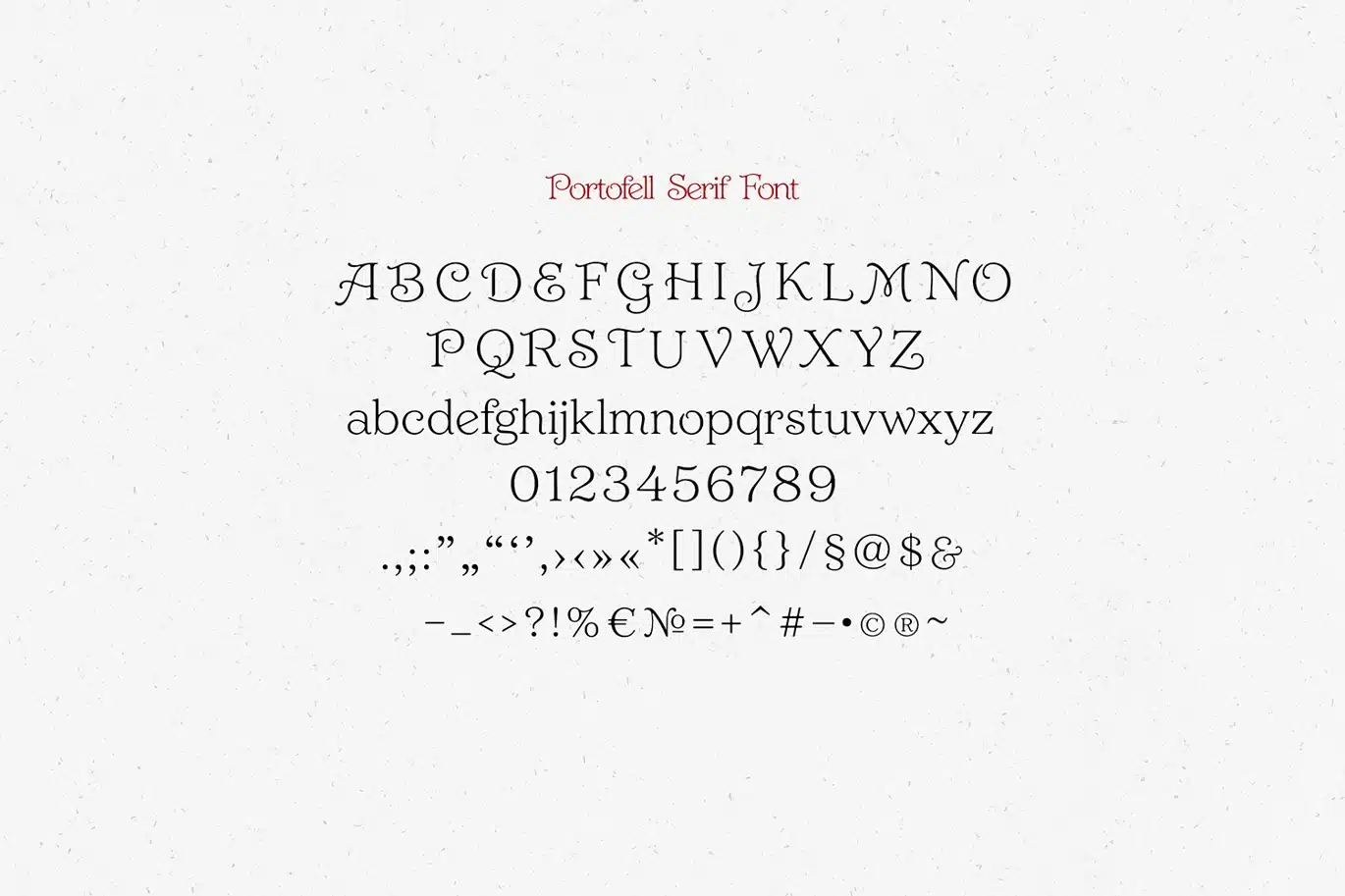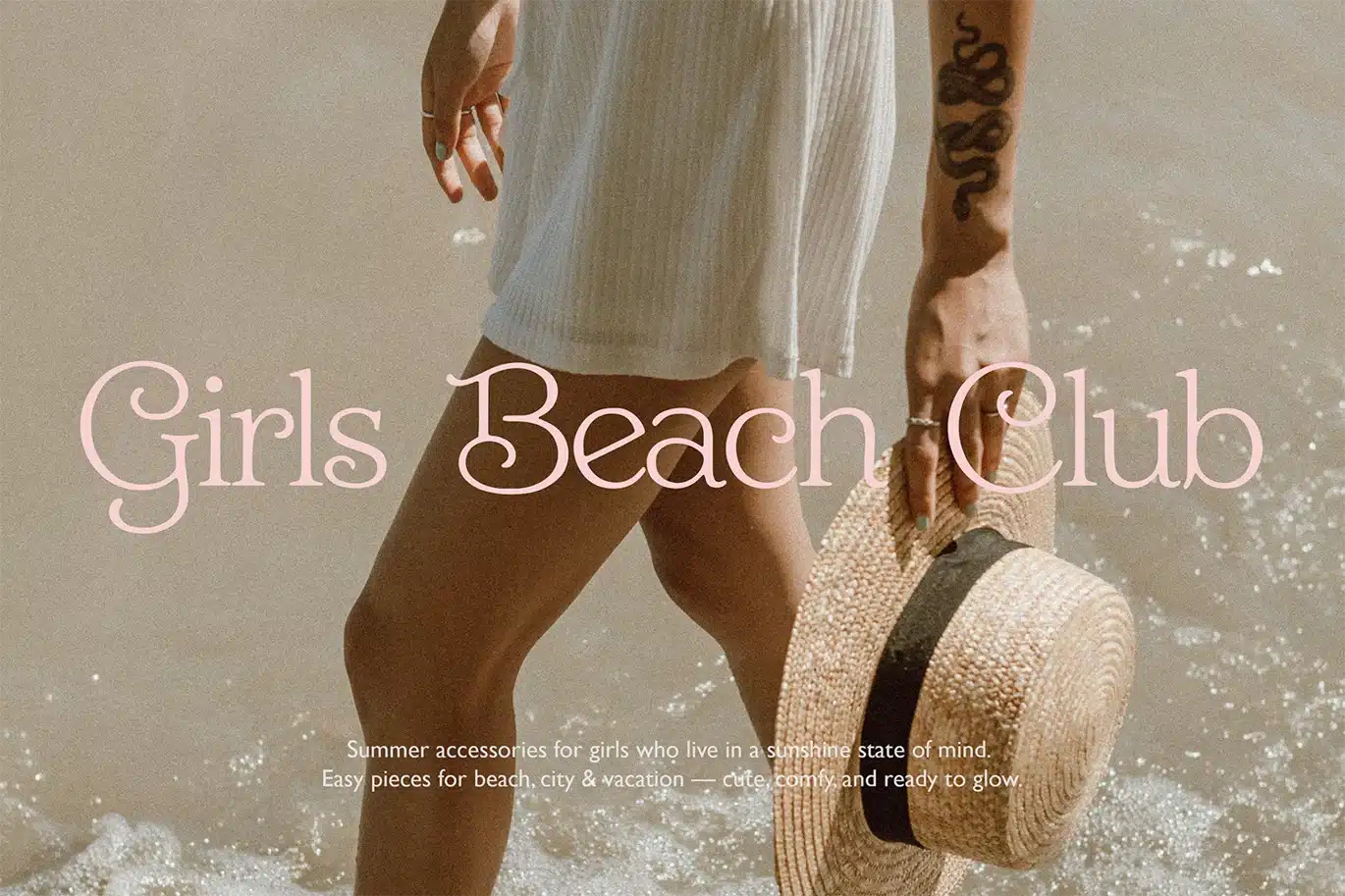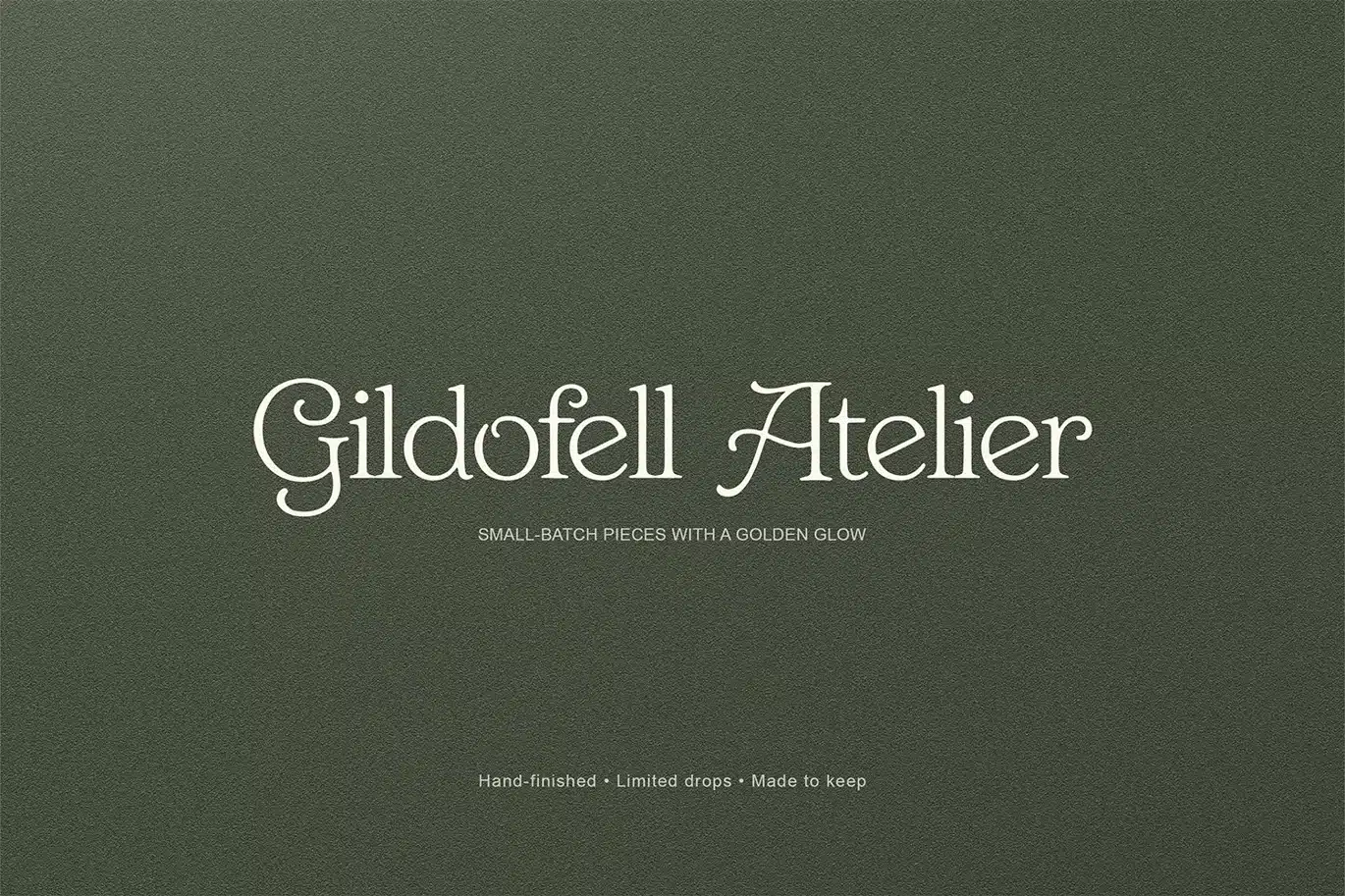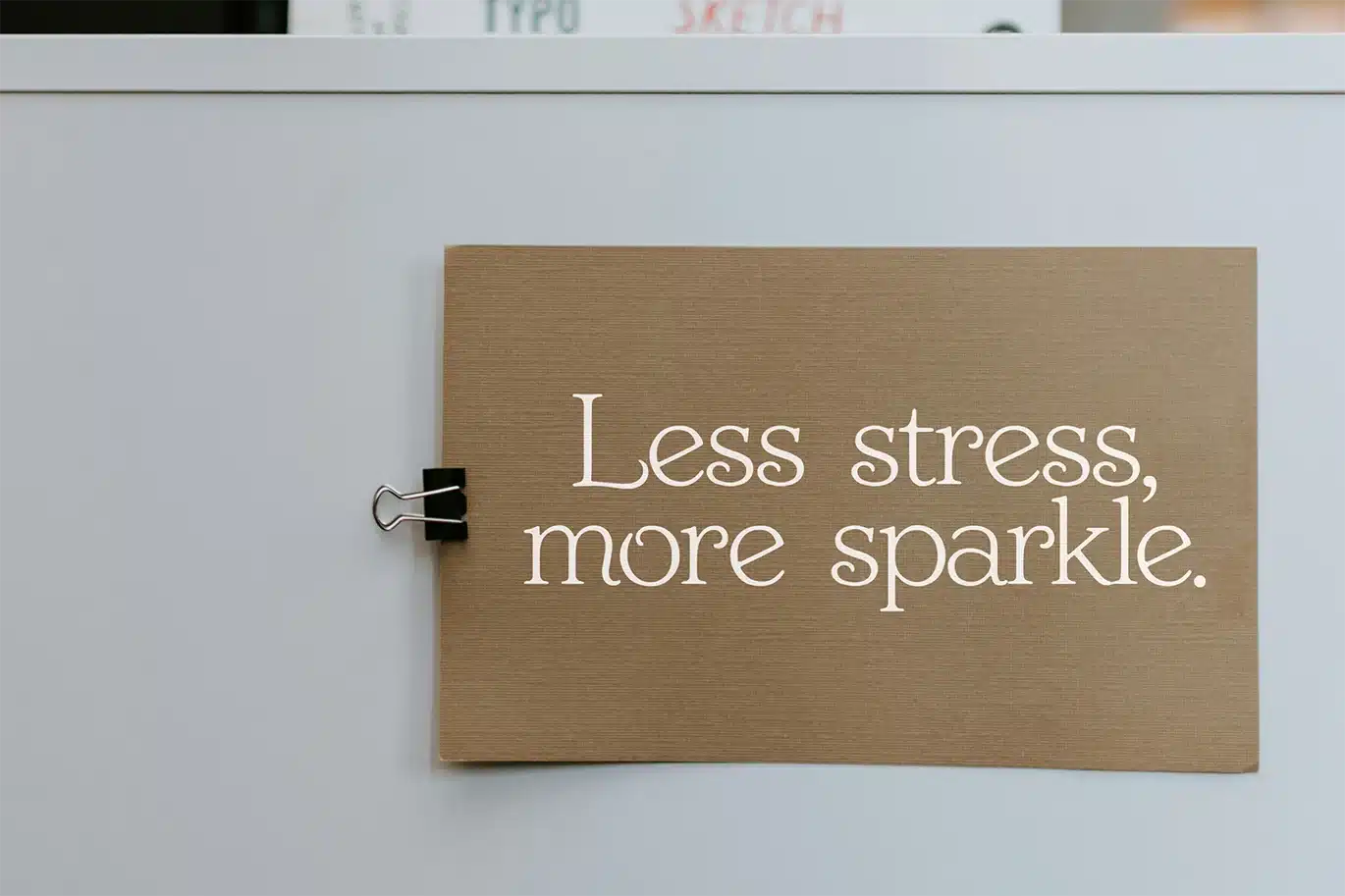
Vintage Display Serif Font
Portofell is a vintage-inspired handmade serif with charming curves and character — perfect for logos, labels, packaging, posters, and branding.